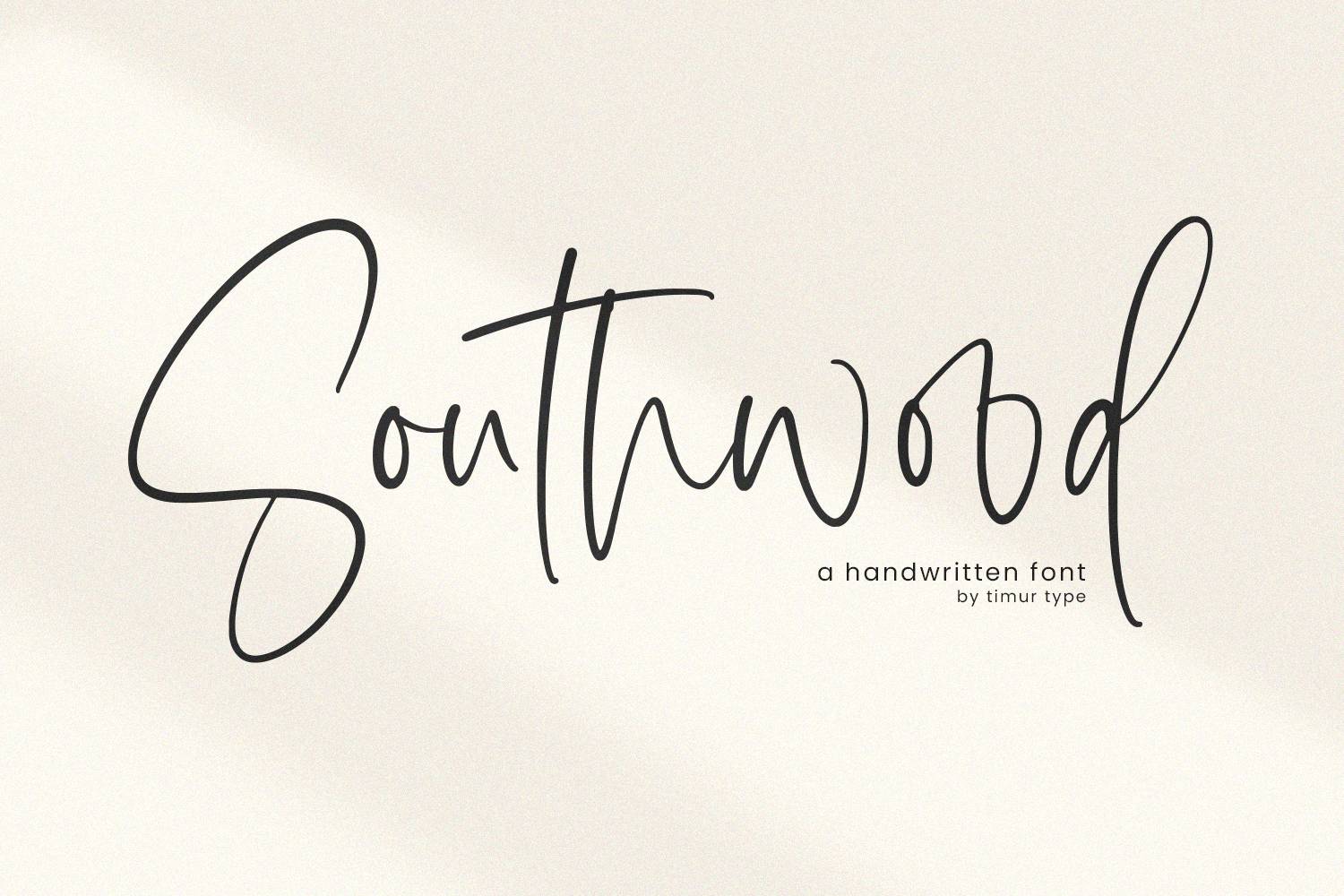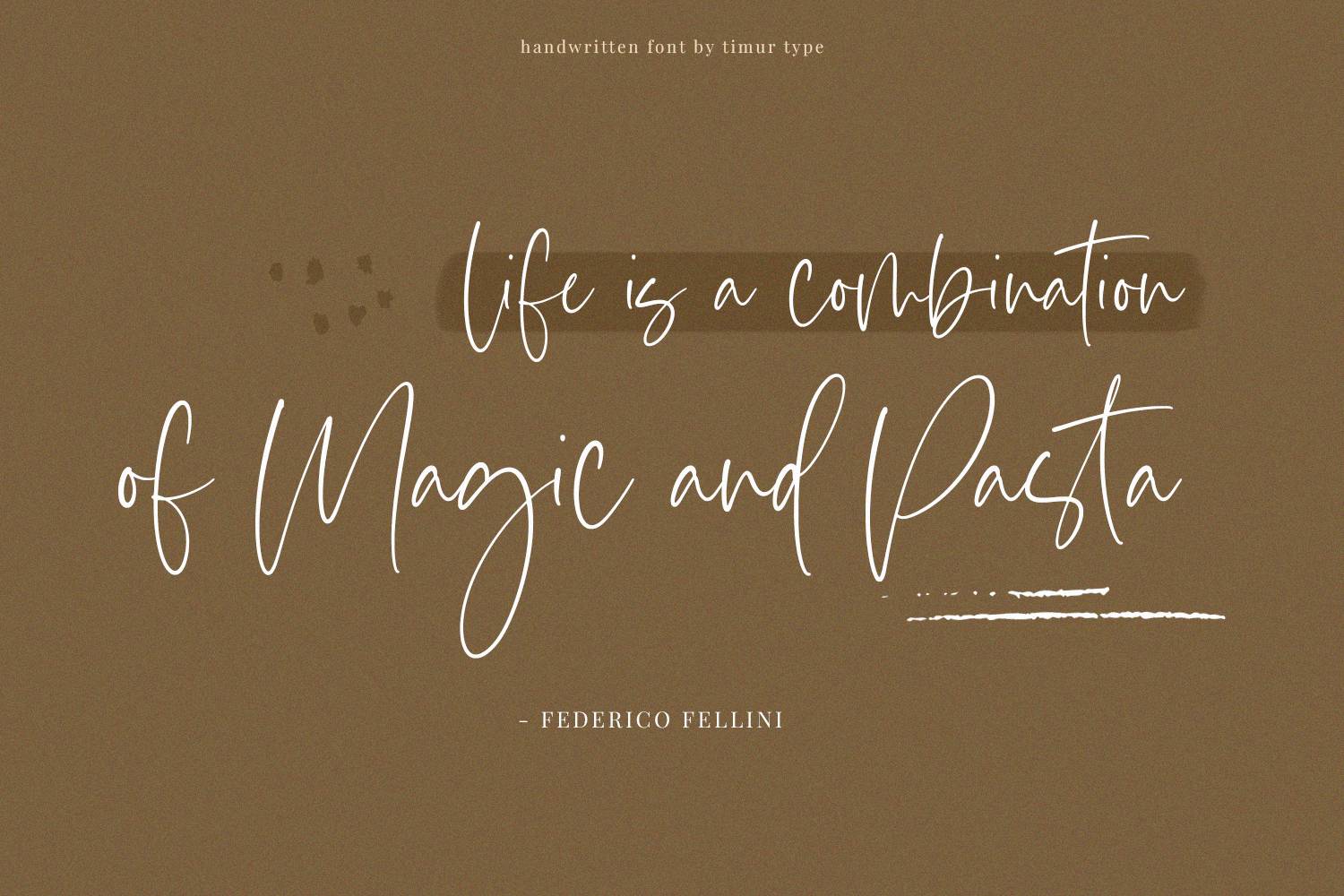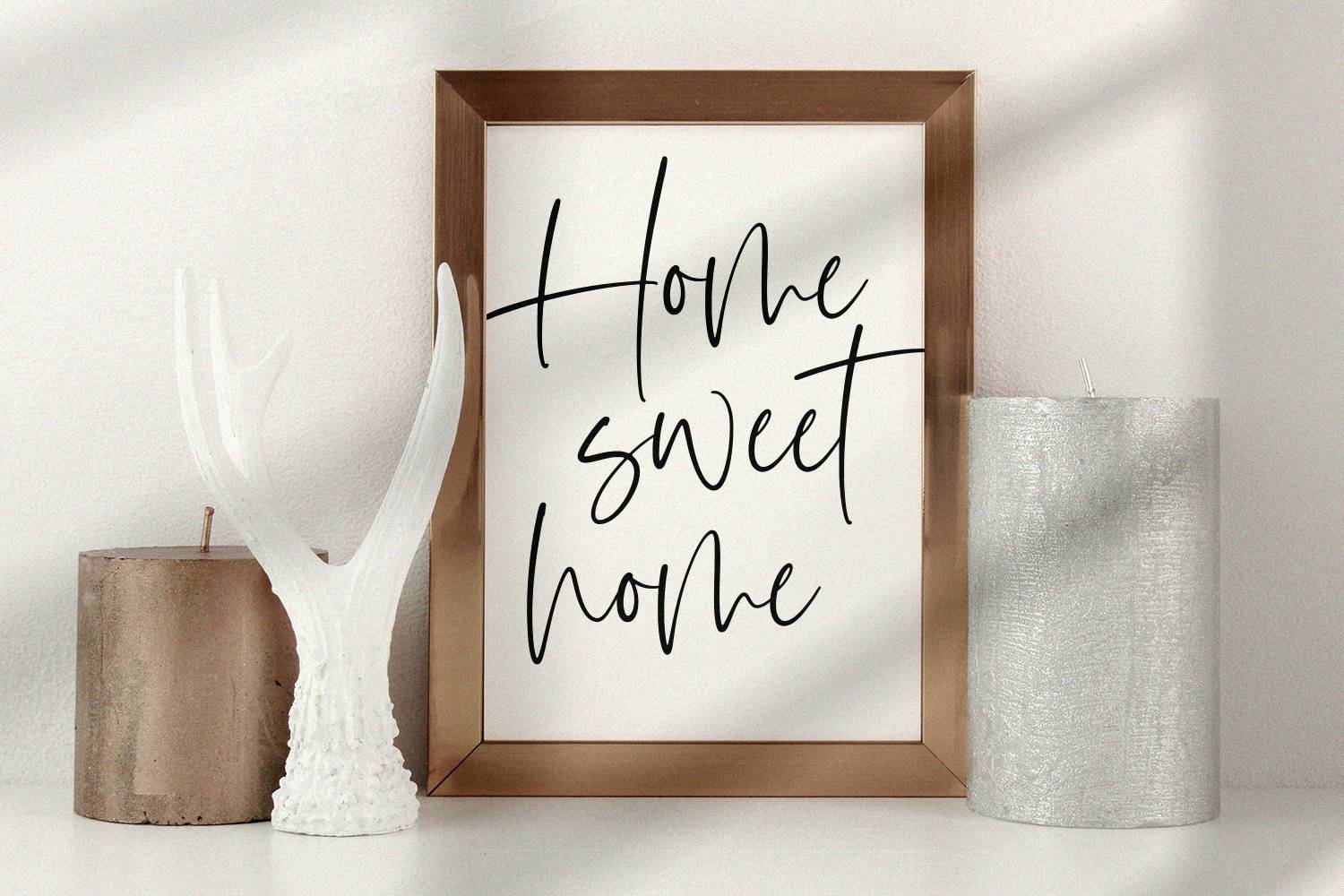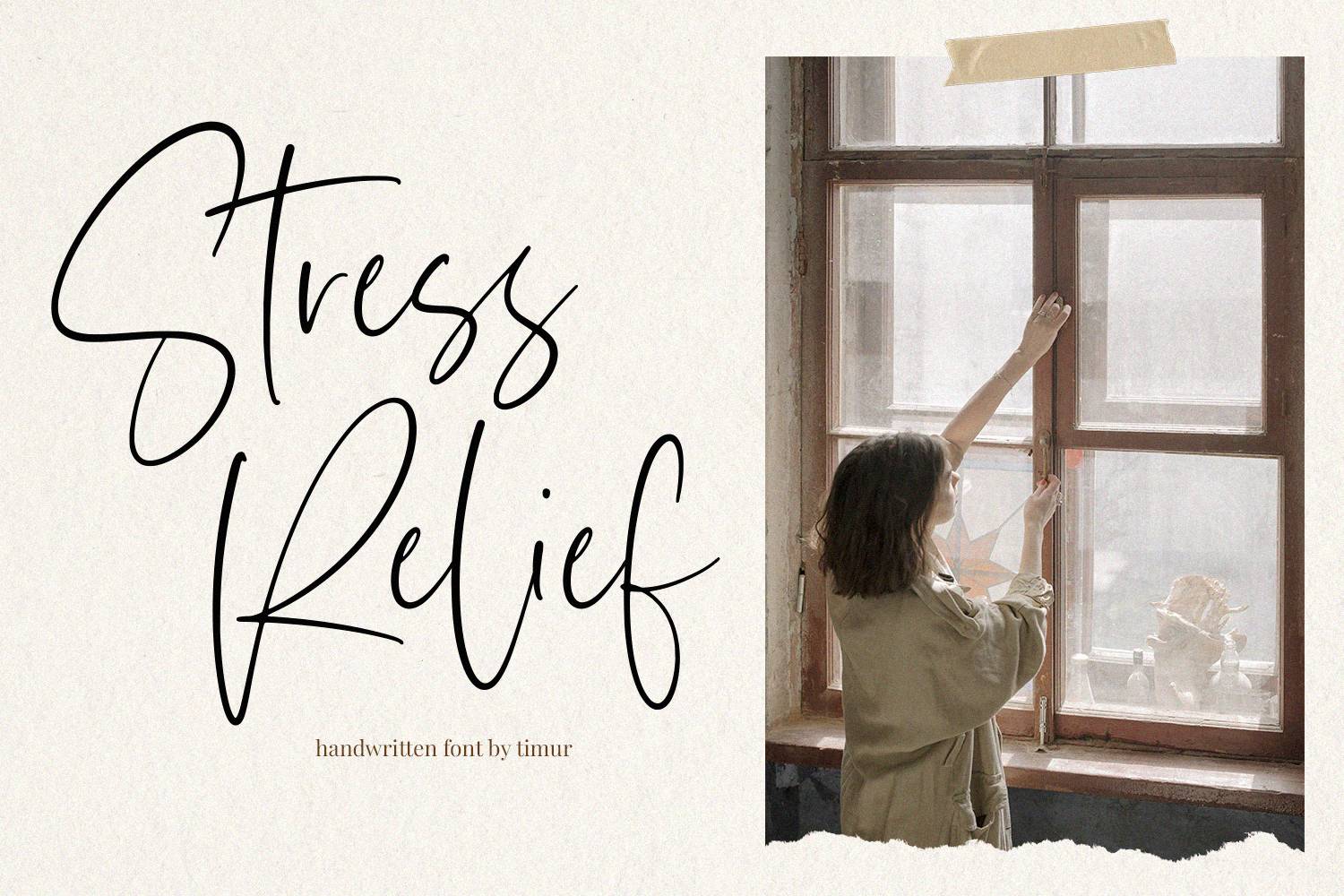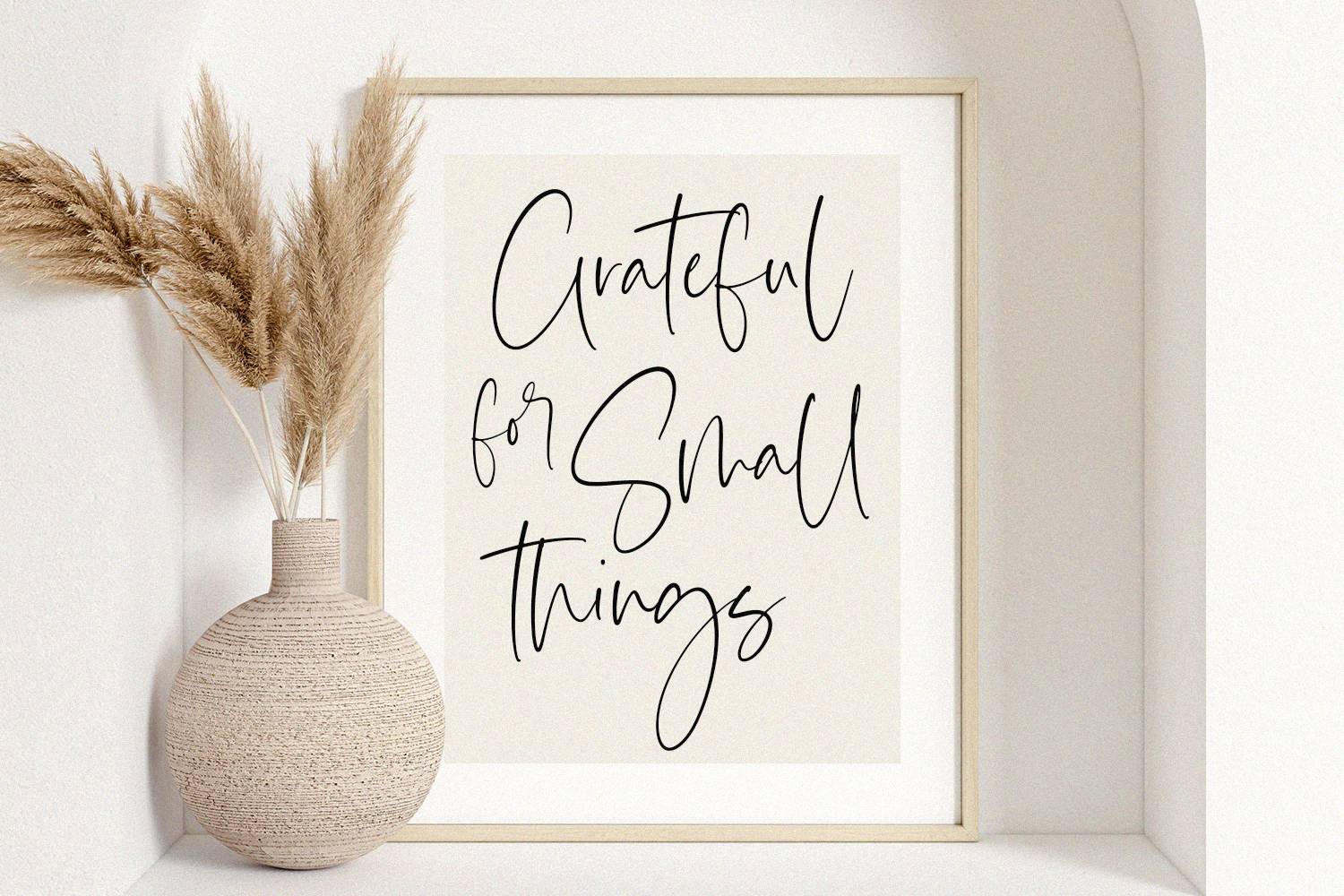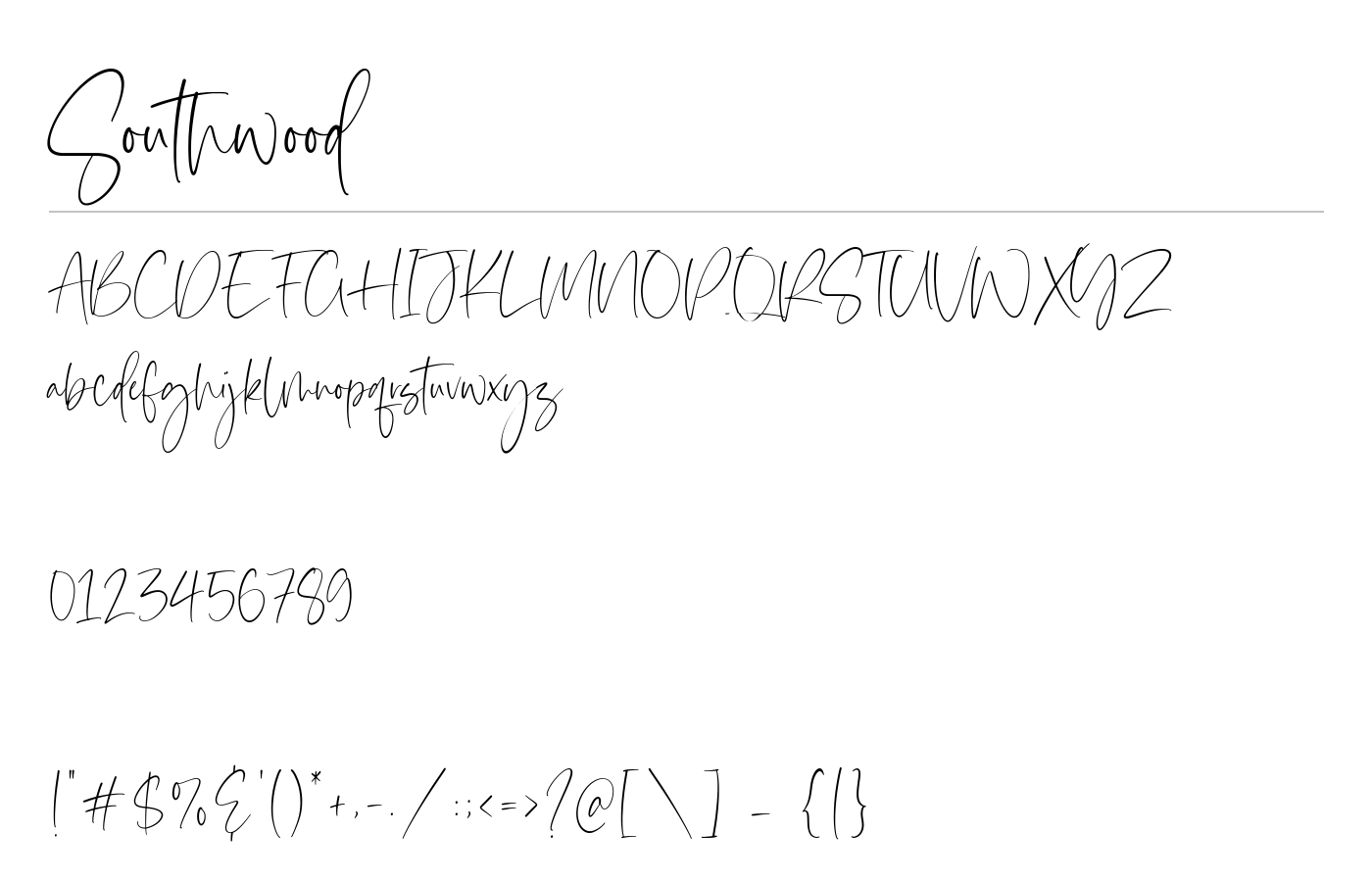
Southwood is a delicate, hand-drawn script font with a light weight and airy feel, characterized by its tall, narrow letterforms and smooth, flowing strokes. Its casual elegance makes it perfect for personal branding, invitations, and creative projects that seek a warm, approachable, and artistic touch. This font works best in headline or display uses where a refined, handwritten style can shine.
Southwood Font
About Southwood Font